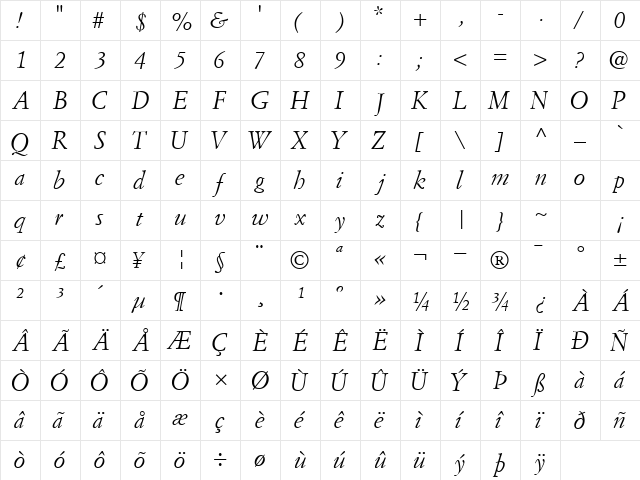
FlorentineGaramondSSK Italic Font Preview
FlorentineGaramondSSK Italic
Design Context for FlorentineGaramondSSK Typeface
FlorentineGaramondSSK offers clean, dependable letterforms without strong stylistic allegiance, making it a practical choice for designers who need flexibility. The slanted form adds forward momentum and visual energy.